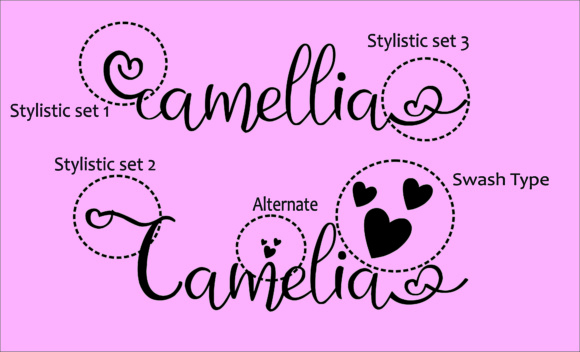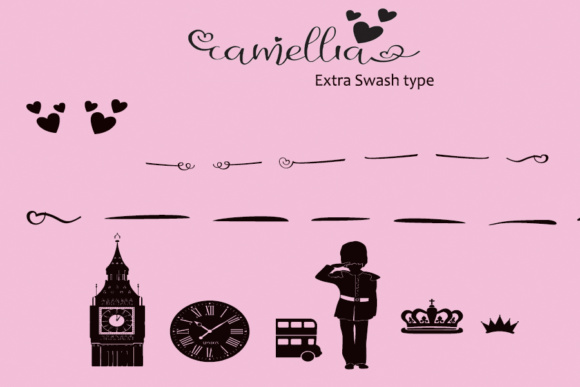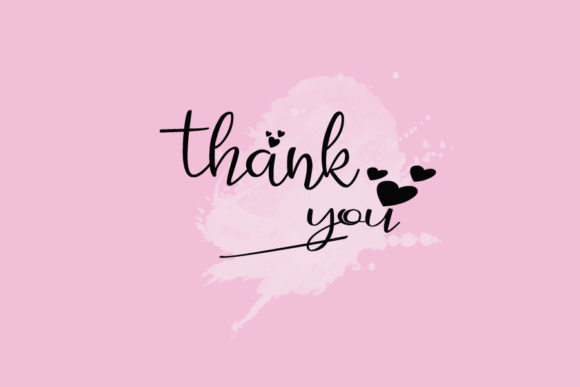
HomeScript FontsCamellia Font Script Fonts Camellia Font FacebookXPinterestWhatsApp Camellia Font Poster 2 Camellia Font Poster 3 Camellia Font Poster 4 Camellia Font Poster 5 Camellia Font Poster 6 Camellia Font Poster 7 Camellia Font Poster 8 Camellia Font Poster 9 About Camellia Font Camelia is a girly handwritten typeface. With this stunning set you can easily create any beautiful design. DOWNLOAD NOW People also explored Play Mask Font Ekela Font Mustache Family Font Thinking Font Rumpelstilnexz Font Carolina Signature Font Seven Loves Font Skolateka Font My Familly Font 347 0 TagsCamellia Font Previous articleThousand Lake FontNext articleMorning Glory Font LEAVE A REPLY Cancel reply Comment: Please enter your comment! Name:* Please enter your name here Email:* You have entered an incorrect email address! Please enter your email address here Website: Save my name, email, and website in this browser for the next time I comment. Personal Use Free Fibon Personal Use Free Read more about this font Expaing Personal Use Free Read more about this font Market Love Personal Use Free Read more about this font Charlie Personal Use Free Read more about this font BLOG How to Install and Use Fonts on Windows, macOS, and Web Projects How to Install and Use Fonts on Windows, macOS, and Web Projects Fonts are a crucial part of design and branding. Whether you’re designing a... The 10 Best Handwriting Fonts to Add Personality to Your Designs Where to Buy American Fonts Online in 2024 Exploring Font Trends